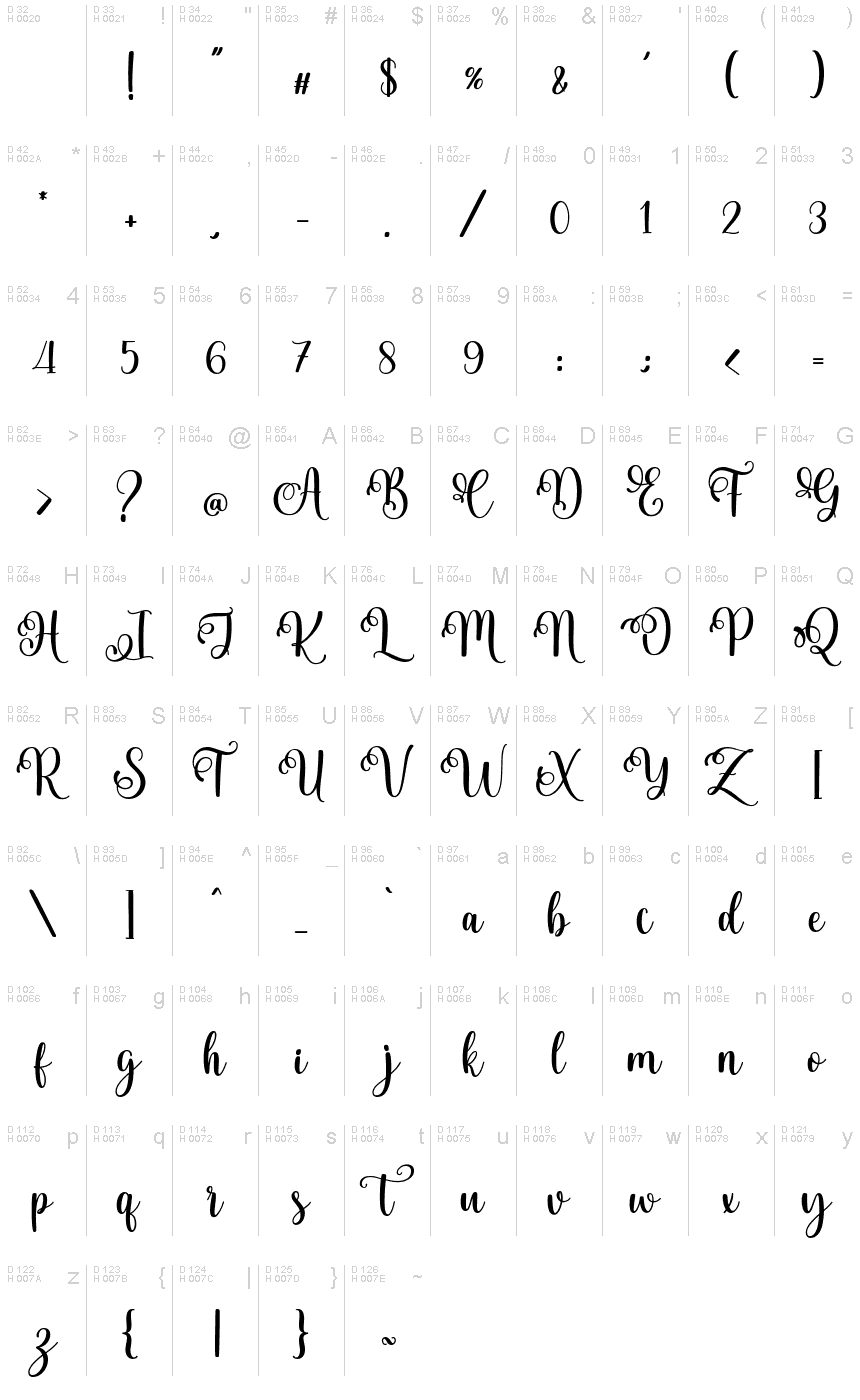
Aceglade_DEMO
Aceglade is a stunning semi-light curly calligraphy font designed by Makashi. With its elegant and playful strokes, it adds a touch of sophistication to any project. This font is perfect for wedding invitations, greeting cards, logos, branding, and more. Aceglade's unique style brings a sense of charm and whimsy that will surely impress your audience. Let this font be the perfect addition to your next creative project and watch as it adds its own magic touch to your designs.